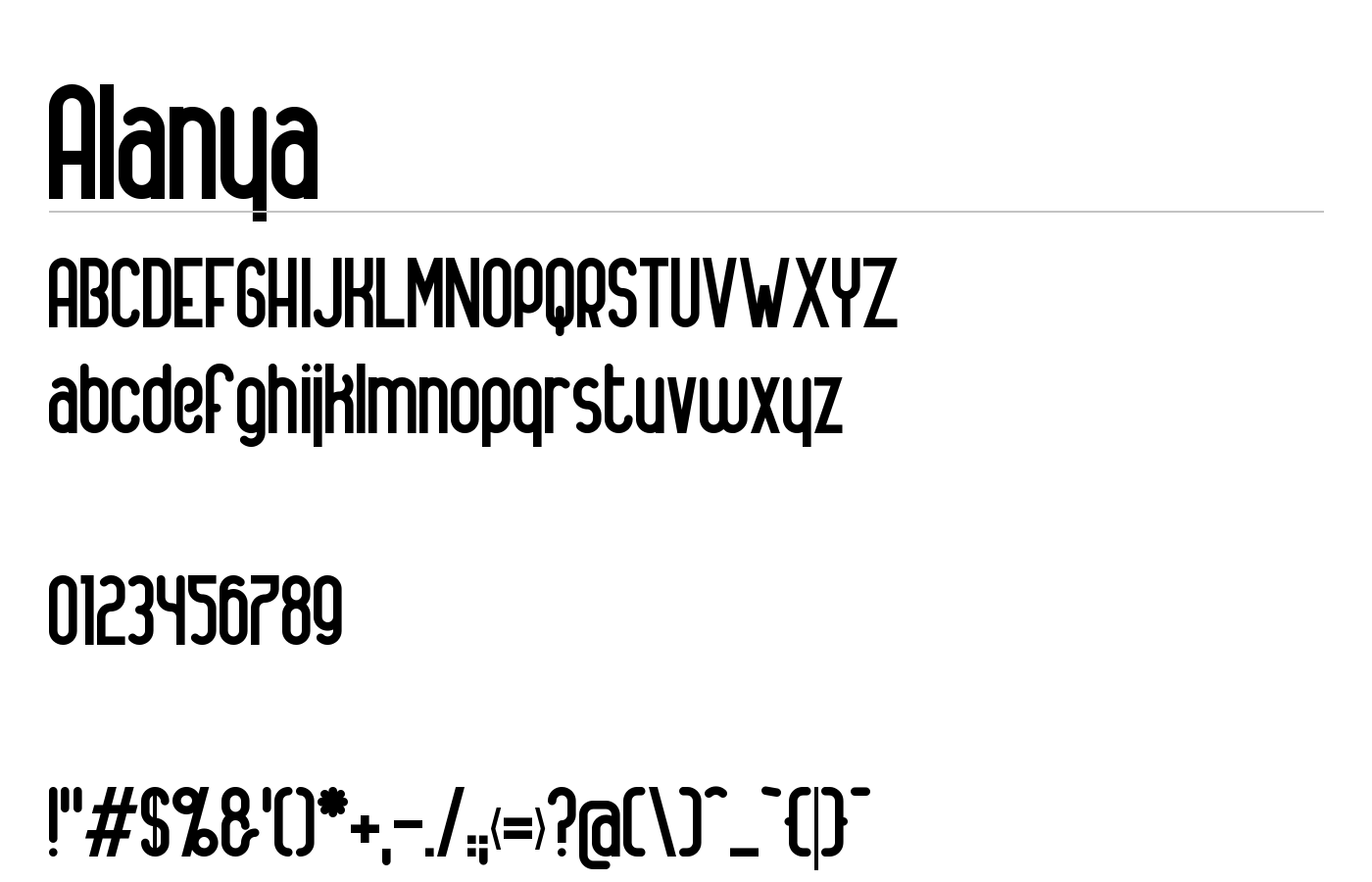
Alanus is a condensed sans serif font with a tall, narrow structure and a clean, modern feel. Its uniform stroke weight and geometric shapes give it a minimalist, slightly futuristic vibe, making it ideal for striking headlines, logos, and contemporary branding that demand a distinctive yet readable appearance. This font works well in settings where space is limited but clarity and style are essential.
Alanus Font
About Alanus Font